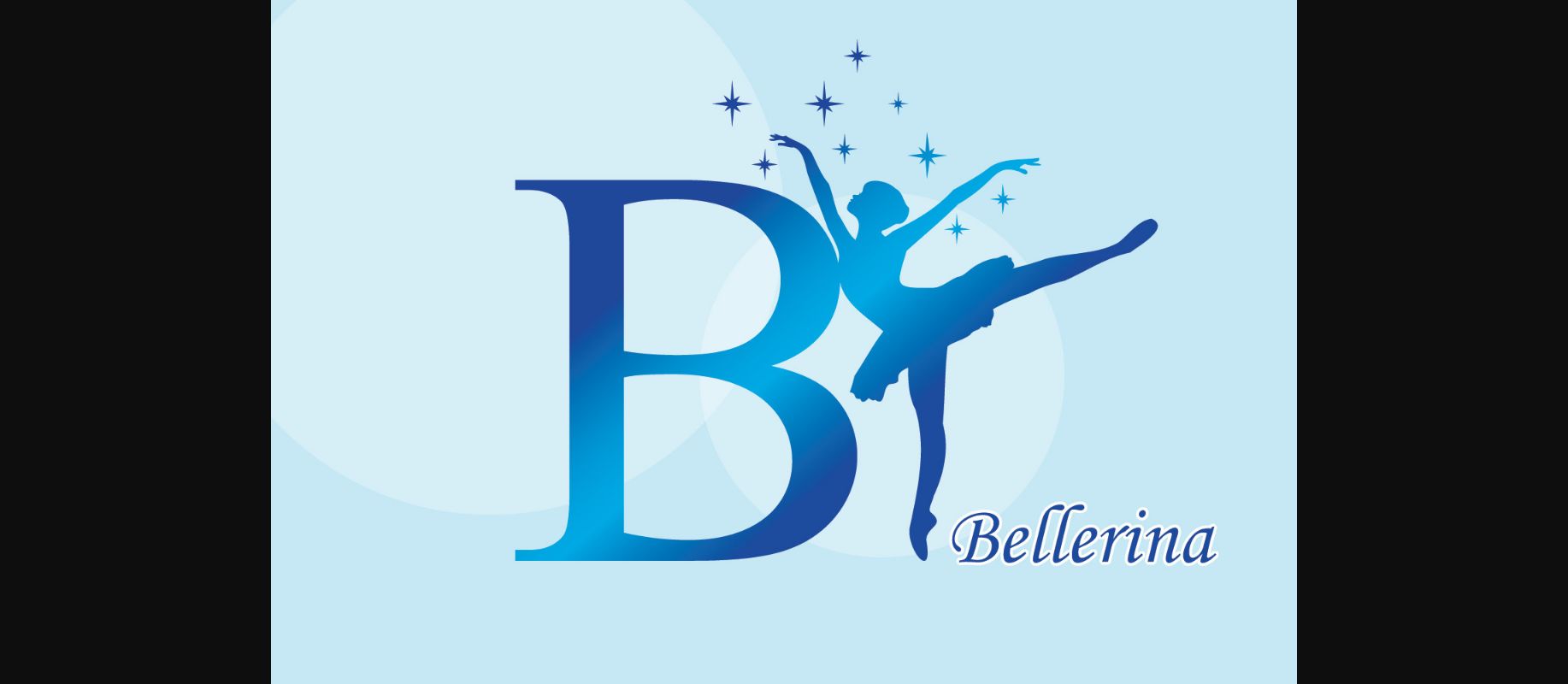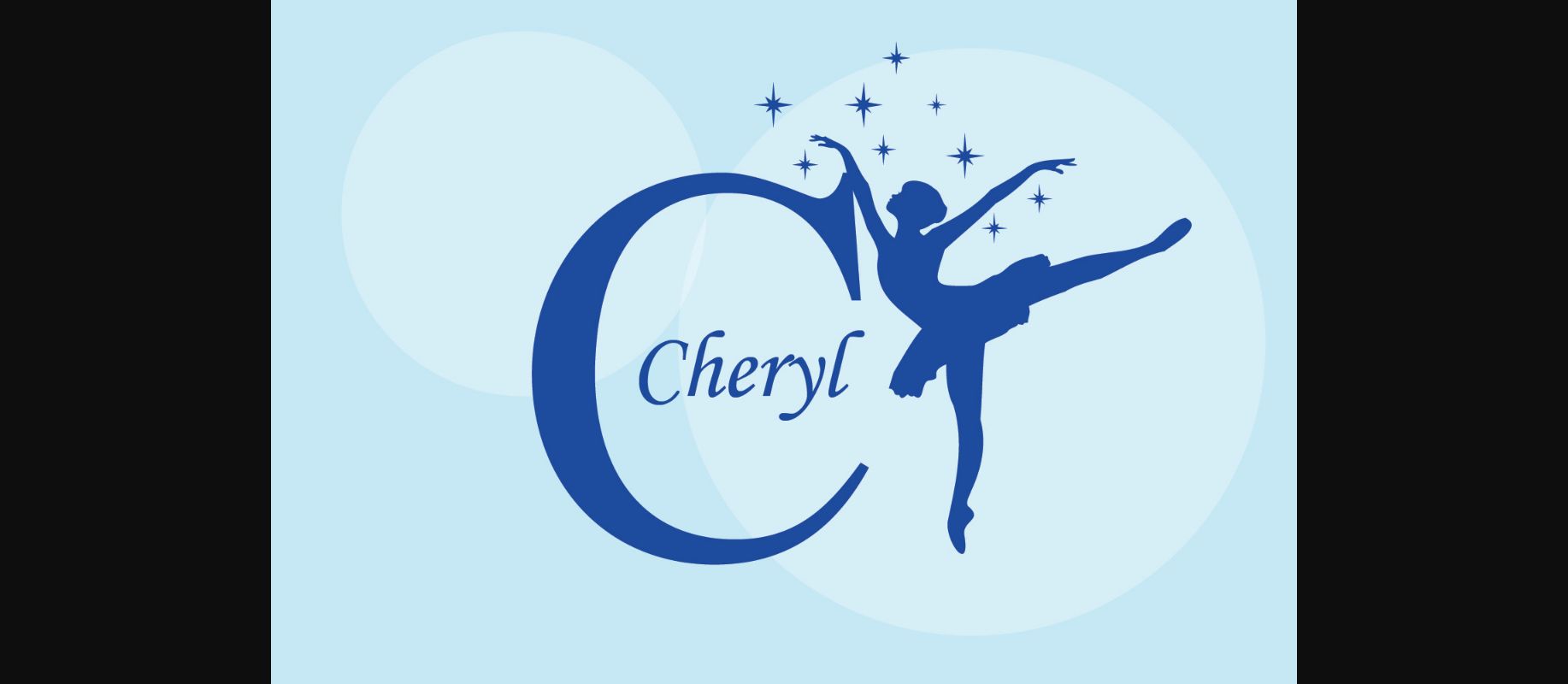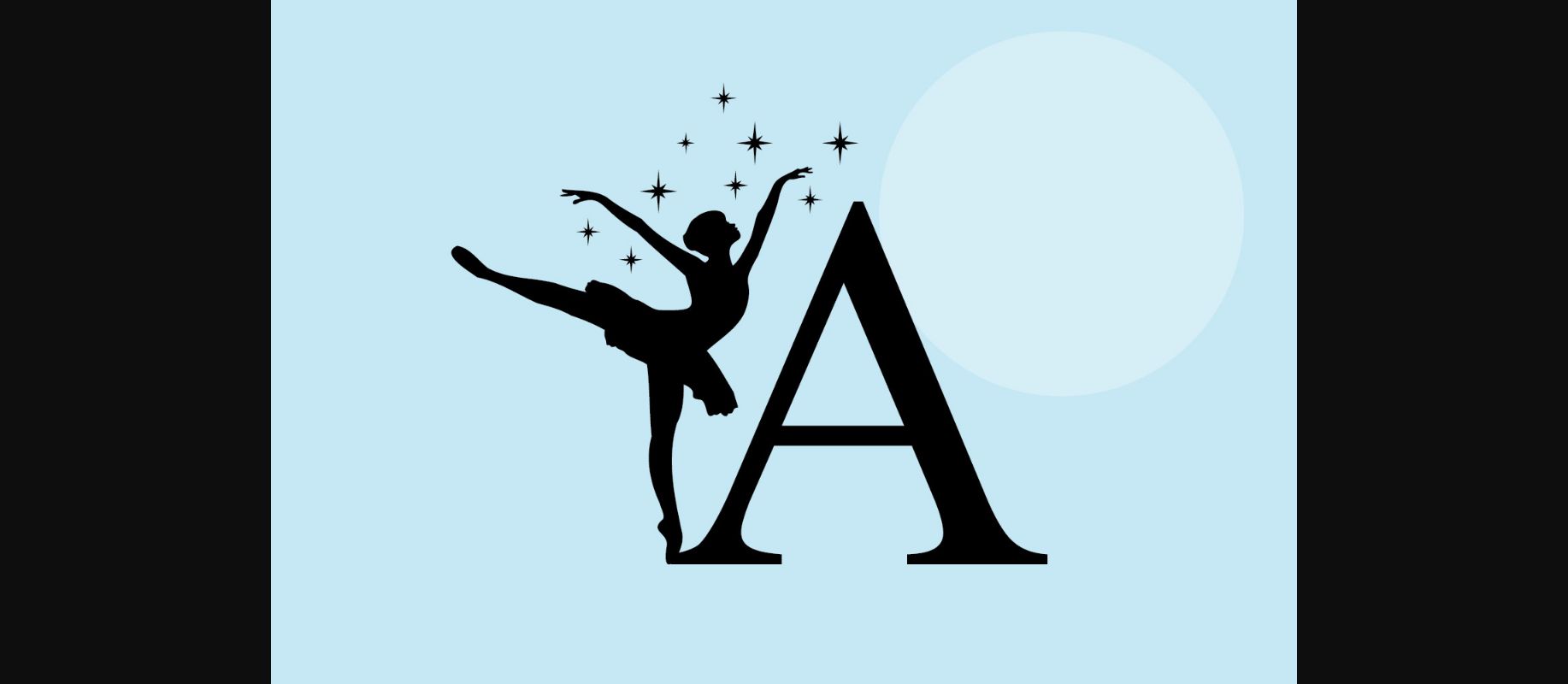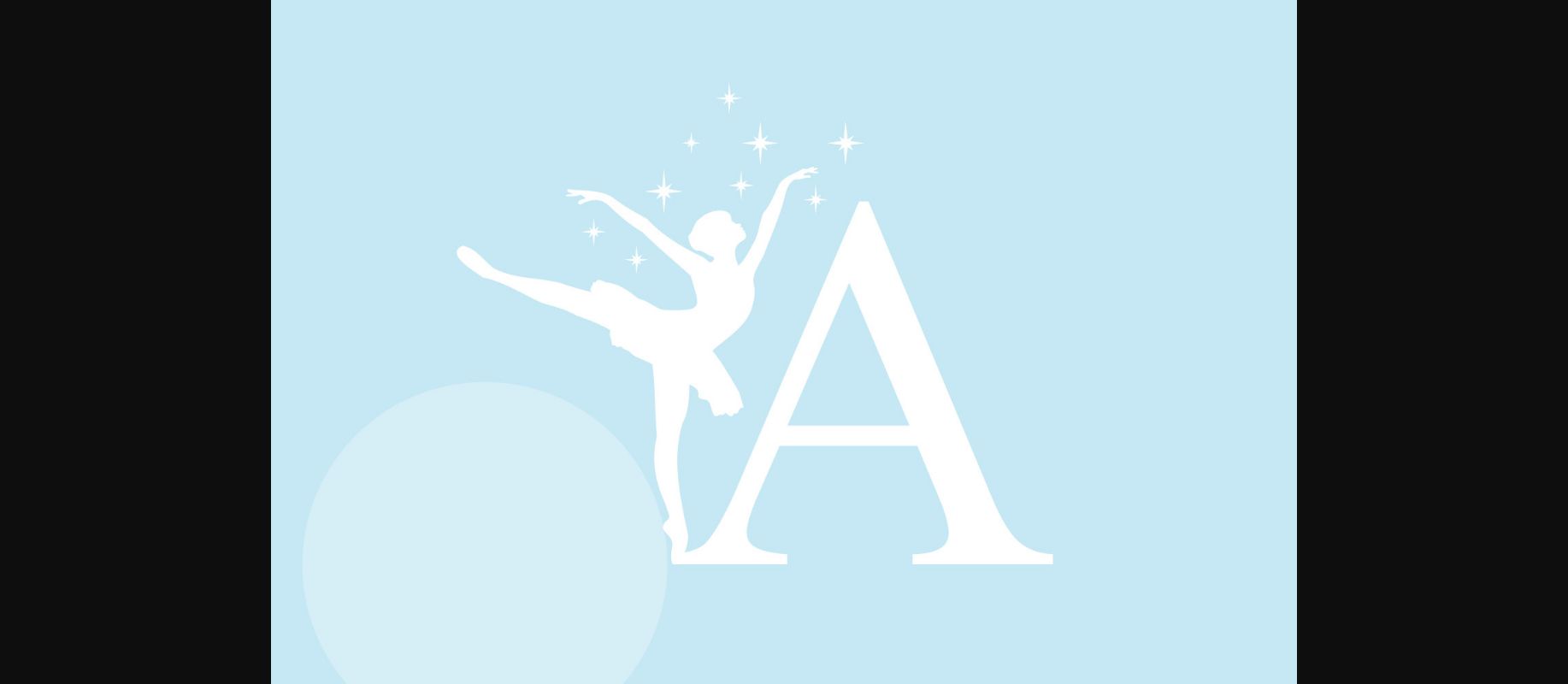
About Bellerina Monogram Font
Bellerina Monogram is an elegant decorative font, featuring lovely ornaments. Fall in love with its authentic feel and use it to create gorgeous stationary art, eye-catching social media posts, and cute greeting cards.